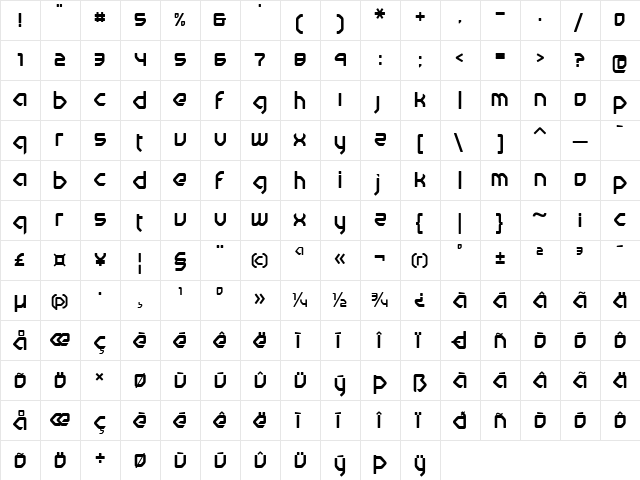
Nuetrina Regular
| Foundry | Tension Type |
| Designer | Michael Tension |
Design Context for Nuetrina Typeface
Nuetrina takes a measured approach to typography — its balanced proportions and neutral character make it a reliable workhorse for both digital and print work.